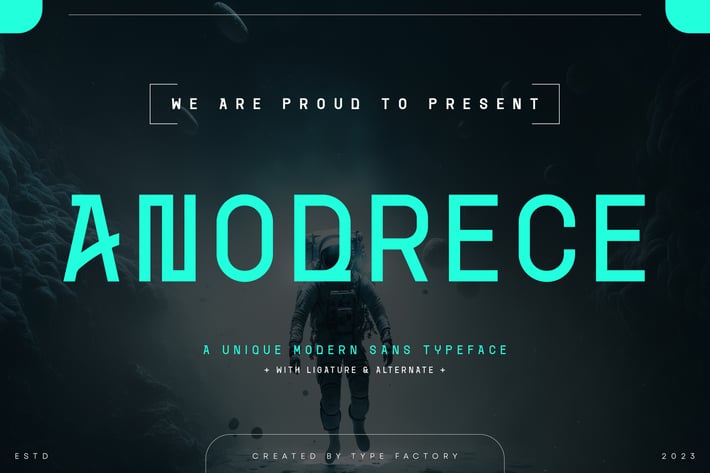
Anoderce - Unique Modern Sans Typeface
Anoderce is a unique modern sans typeface that stands out with its sleek, minimalist design and contemporary aesthetic. Perfect for branding, digital interfaces, and print media, Anoderce offers exceptional readability and versatility. Its clean lines and balanced proportions make it suitable for a wide range of applications, from bold headlines to body text. Anoderce brings a fresh, innovative look to your projects, combining functionality with a stylish edge.
– Lowercase
– Ligature